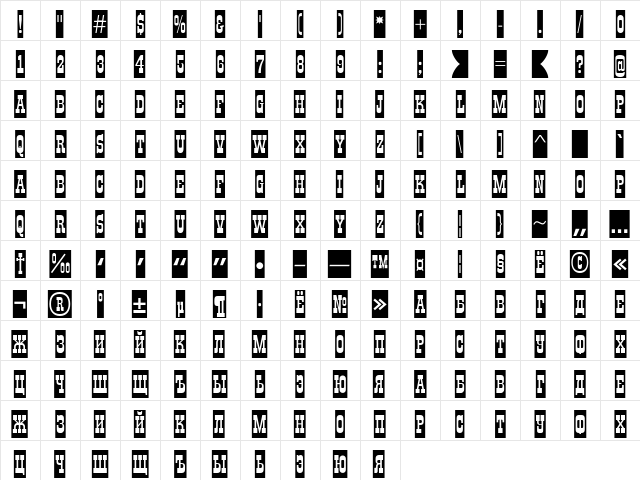
a_GildiaTitulSl Normal
Design Context for a_GildiaTitulSl
a_GildiaTitulSl is a composed and adaptable typeface that performs quietly and consistently across a wide range of design contexts.